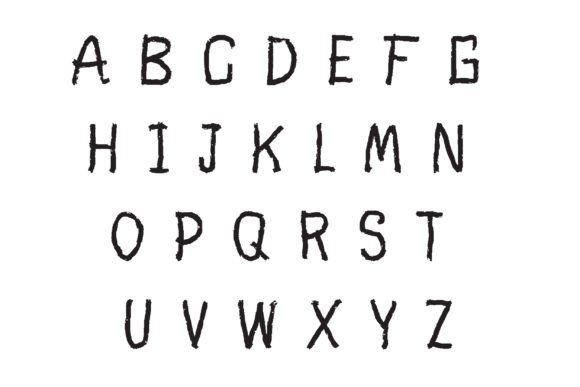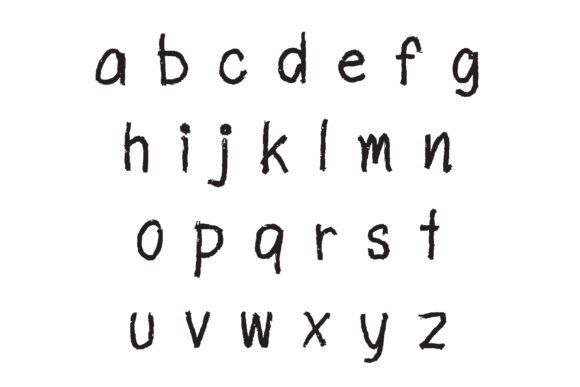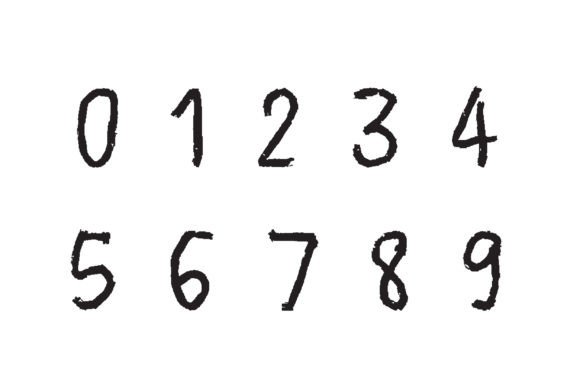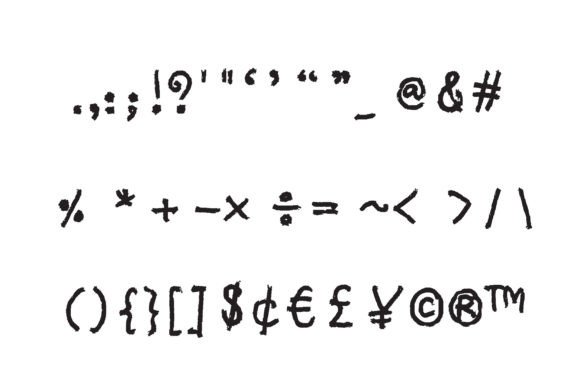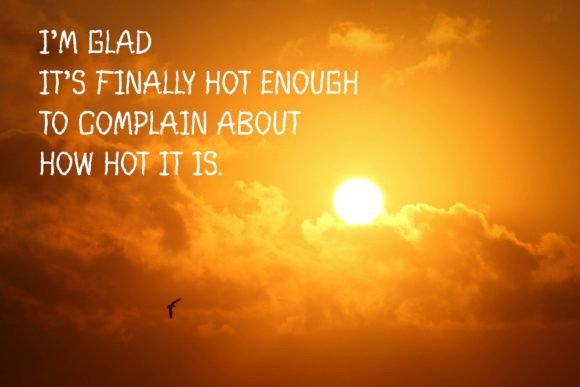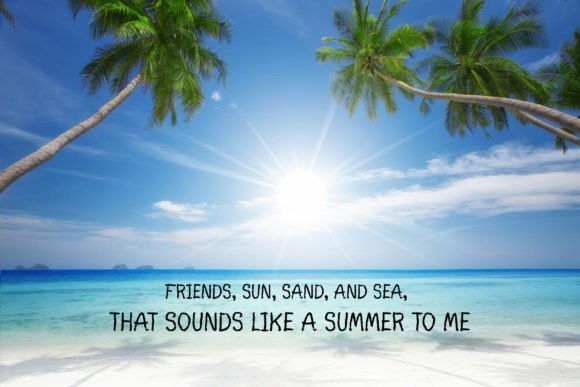
Introduction to Hot Day Font
Hot Day is a handmade display font with outer notches.
It is suitable for casual greeting cards, posters, social media, and quotes on products like mugs or shirts .
Key Features of Hot Day Font